Creating a great metal logo isn’t just about spikes and chaos—it’s about capturing atmosphere. The best metal logos feel like they’ve grown from darkness, rot, or something ancient and cursed.
That’s why choosing the right font is everything.
If you’re looking to build a logo that feels hand-crafted, raw, and terrifyingly natural, here are four fonts from BlackMetalFont.com that will bring your band’s identity to life—without forcing it.
🔪 1. Sadistic Murder
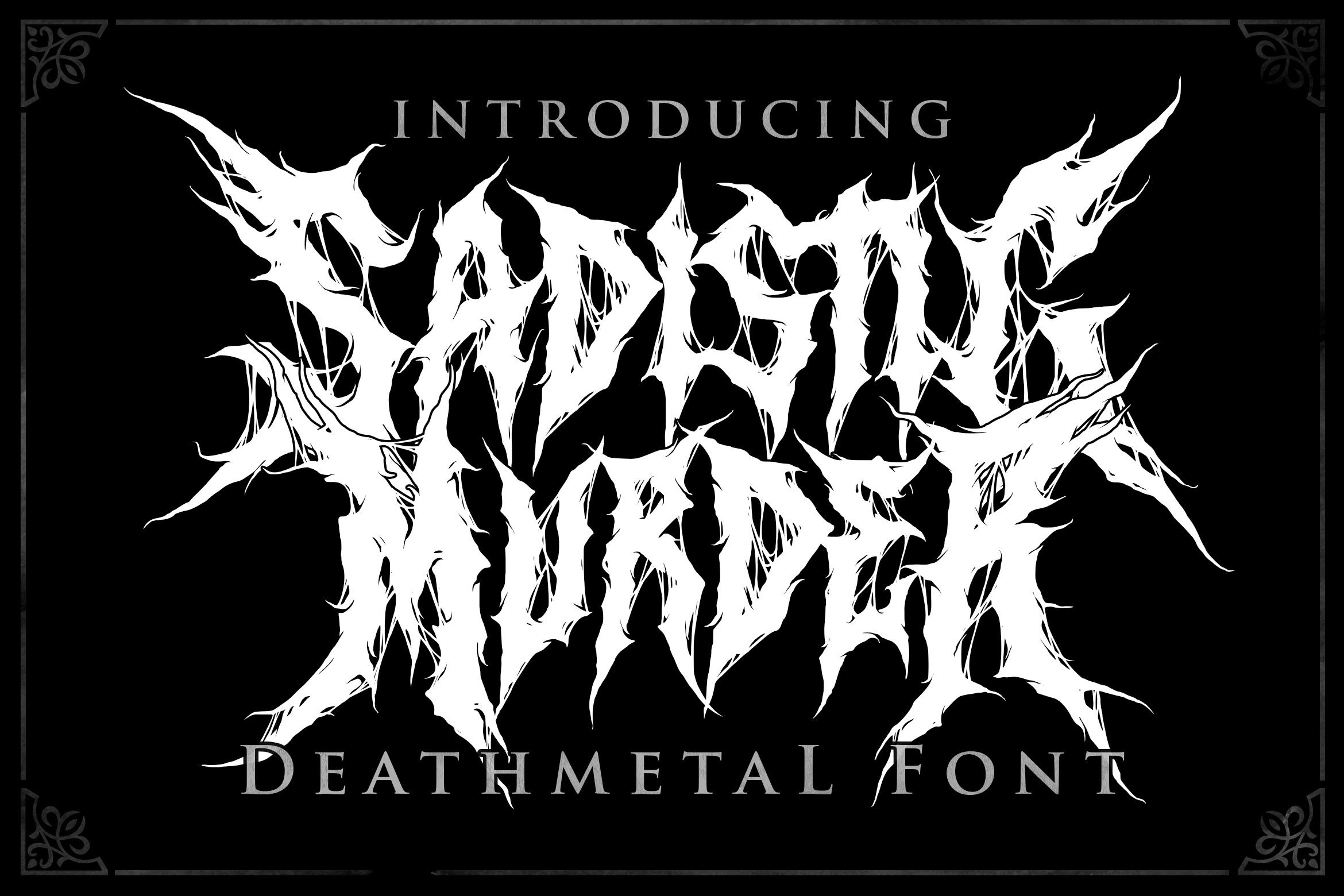
Style: Raw, tangled, chaotic death metal
If your band sounds like the end of the world and you want your logo to look like it was scratched out in blood—Sadistic Murder is your weapon.
- The letters are jagged and violently uneven, as if carved through bone.
- Its drippy extensions and sharp points give it a ritualistic energy, perfect for brutal death metal, slam, or grindcore bands.
- Despite its chaos, it remains surprisingly legible, making it ideal for posters and merch without losing brutality.
This font doesn’t whisper death—it screams it from the pit.
🦋 2. Marvosa
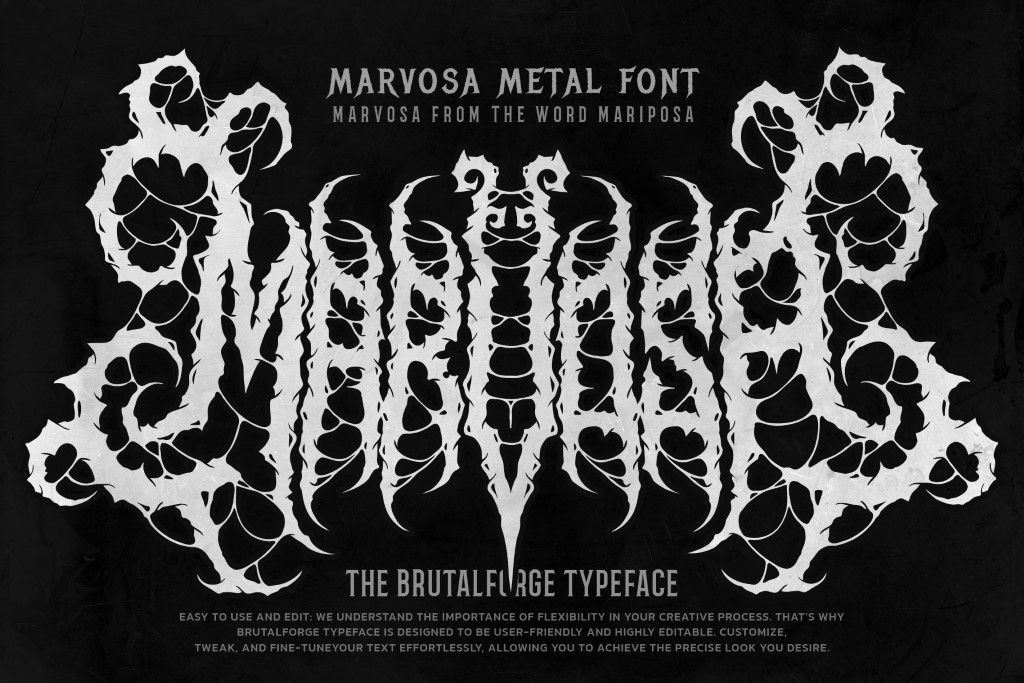
Style: Symmetrical, ornamental, insectoid elegance
Marvosa takes inspiration from the word mariposa (Spanish for butterfly), and somehow transforms elegance into something disturbingly dark.
- Its symmetrical structure makes it ideal for black metal or melodic death metal bands who want clean horror.
- The organic, spine-like curves of each letter make it feel almost alive, like wings made of bone.
- Marvosa works beautifully when you want to balance brutality with mysticism—a rare combo in logo design.
For bands that worship both beauty and decay, Marvosa delivers.
💧 3. Sadness
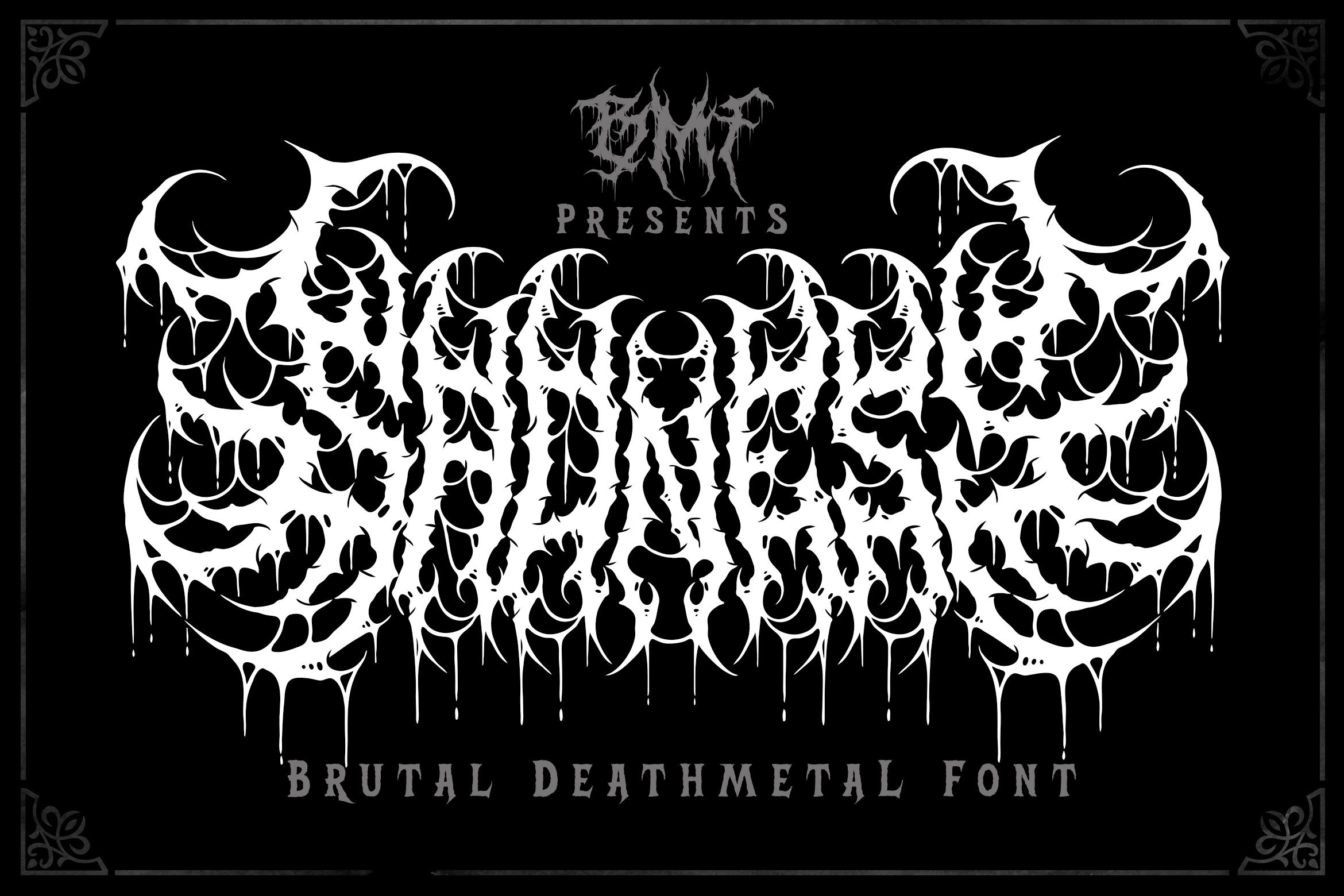
Style: Dripping, decayed, emotional blackened horror
Sadness is not just a name—it’s a visual mood.
- This font feels like it’s crying blood. Its long, dripping forms evoke sorrow, decay, and anguish.
- Perfect for DSBM, depressive black metal, atmospheric doom, or anything that leans into pain and despair.
- The symmetry in Sadness gives it logo-quality form, but its imperfections and organic bleed effects make it feel handcrafted and emotional.
Sadness isn’t just metal—it’s mournful, haunted, and unforgettable.
🕸️ 4. Nexus
Style: Webbed, eerie, and sharp black metal structure
Nexus captures that classic Norwegian black metal energy, but with modern precision.
- Its web-like ligatures and bone-split angles create a feeling of ancient evil and darkness.
- Nexus is ideal for raw black metal, second-wave throwbacks, or any band that thrives in fog, frost, and fire.
- The font balances detail and symmetry so well that it looks like it could’ve been etched into a dungeon wall.
If your sound is a ritual, Nexus is your sigil.
🎯 Final Thoughts
The best metal logos don’t feel forced—they feel like they grew from a corpse, a tree root, or an ancient curse. These four fonts give you natural flow, organic horror, and brutal elegance that can define your band’s entire aesthetic.
Whether you’re going for chaos, sorrow, precision, or eerie symmetry—Sadistic Murder, Marvosa, Sadness, and Nexus are built to make your name unforgettable.
So pick your font. Twist it. Break it. Bleed it.
Make it yours—and let the world hear your logo before they hear your sound.